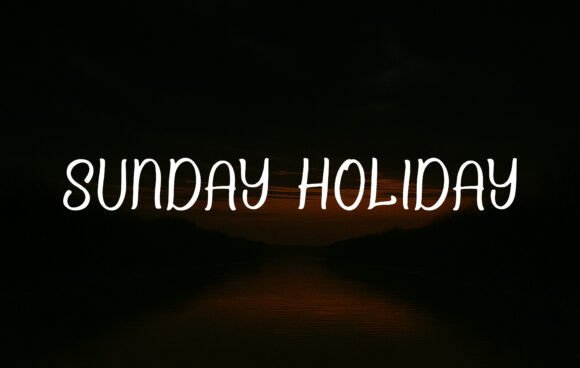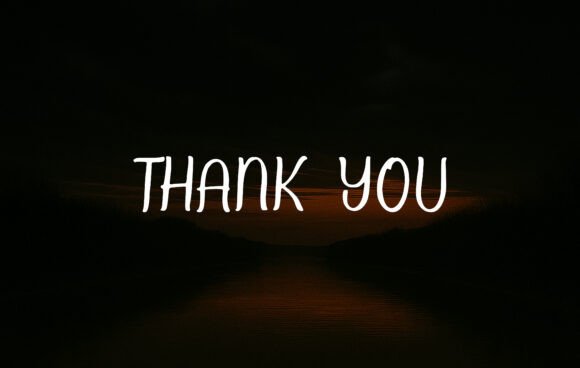
Introduction to Lawrence Font
Do you remember that moment when you’re brainstorming a creative project and you’re stuck trying to find the perfect font? You scroll through your design resources, searching for something that screams elegance and sophistication, yet still feels approachable and modern. That’s where Lawrence Font comes in – a stunning, handwritten display font that’s sure to elevate your designs and leave a lasting impression.
With its tall, elegant letters and clean finish, Lawrence Font is the perfect addition to any project. Whether you’re crafting a beautiful invitation, designing a stylish brand, or adding a touch of sophistication to your editorial layouts, this font is sure to deliver. And the best part? Lawrence Font is available for a free download, making it a valuable resource for designers of all levels.
Key Features of Lawrence Font
- High-quality font with a transparent background, ideal for creative projects and designs.
- Features a unique and elegant design, making it perfect for use in logos, branding, and other visual identity projects.
Honest Review: Lawrence Font
I recently had the chance to work with Lawrence Font, a beautifully crafted font family perfect for any creative project. One of the things that stood out to me was its high quality design, making it a great addition to any design resource. The font’s clean and elegant lines give it a professional look that’s perfect for both personal and commercial projects.
One of the things I love about Lawrence Font is its versatility. It comes with a variety of weights and styles, making it easy to use in a wide range of creative projects. From titles to body text, Lawrence Font has got you covered. Plus, it’s available for free download, which is a huge plus in my book.
- Wide range of weights and styles
- Perfect for both personal and commercial projects
- No transparency support (background is not transparent)
- May not be suitable for projects that require a lot of customization
Overall, I’m really impressed with Lawrence Font. Its high quality design and wide range of styles make it a great addition to any design resource. While it may have some limitations, it’s still a great choice for any creative project. I’d definitely recommend giving it a try.
Some tips for getting the most out of Lawrence Font include using it on a transparent background and experimenting with different font styles and sizes. Common use cases include creating professional-looking business cards, designing eye-catching posters, and enhancing your social media graphics.